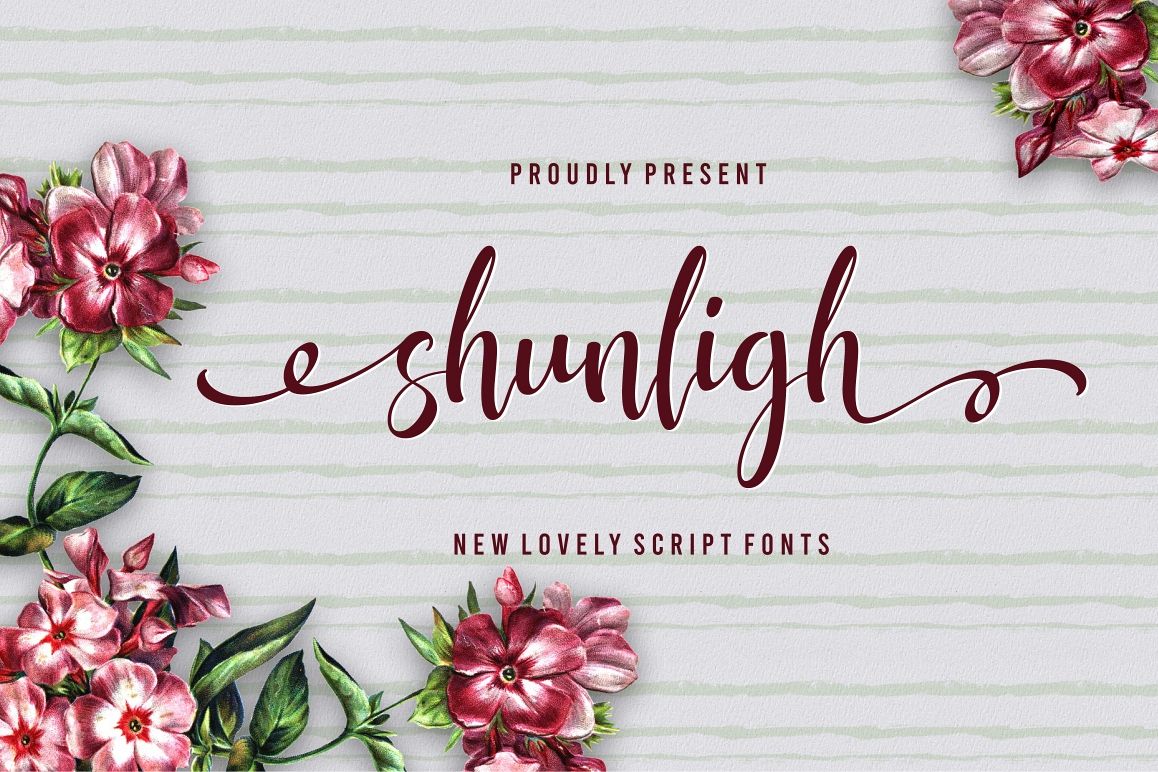
shunligh
shunligh is a font that made the hand by having the character up and down like a dancer. shunligh has a very unique style of calligraphy, it is very suitable for use in the work of modern design.
The Features of this fonts is:
* Standart ligatures
* Stylistic Alternates<
* PUA Unicode (Private Use Areas)
Can be used for various purposes.such as headings, logos, wedding invitation, t-shirt, letterhead, lable, news, posters, badges etc. To enable the OpenType Stylistic alternates, you need a program that supports OpenType features such as Adobe Illustrator CS, Adobe Indesign & CorelDraw X6-X7.a font that made the hand by having the character up and down like a dancer. shunligh has a very unique style of calligraphy, it is very suitable for use in the work of modern design.